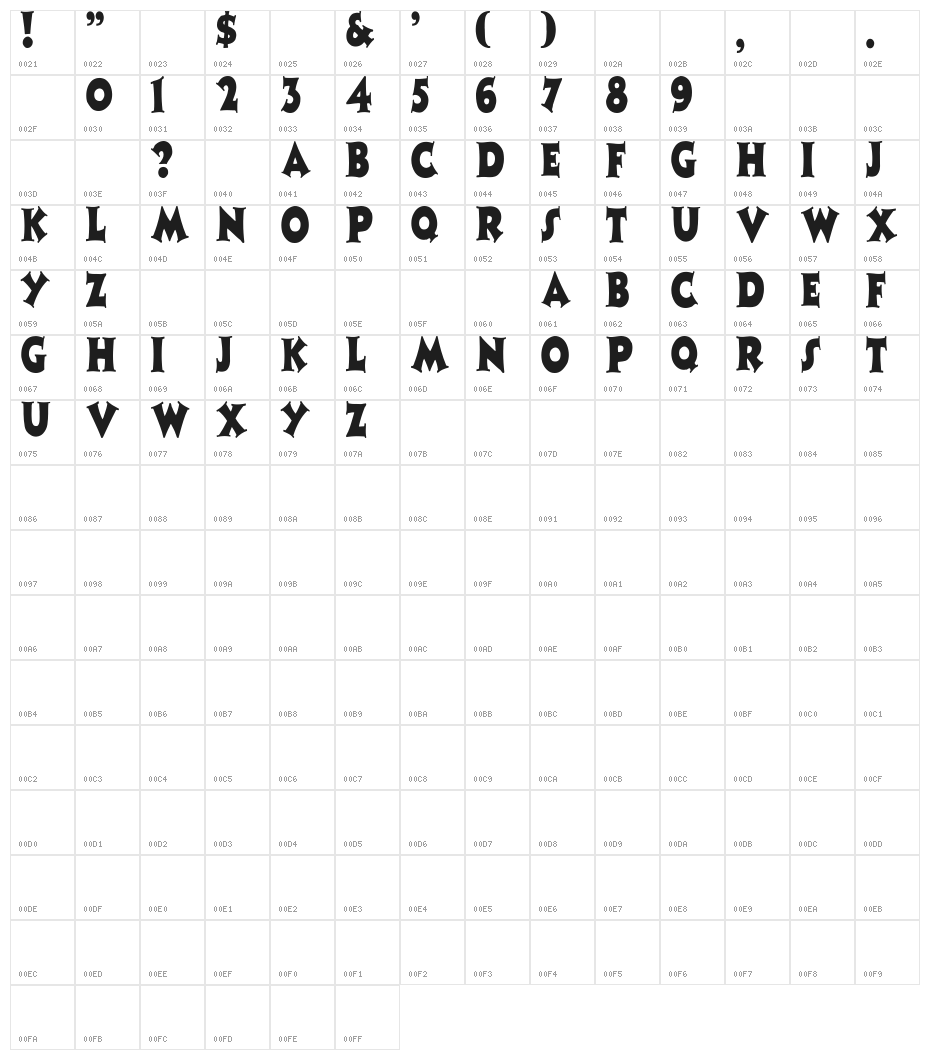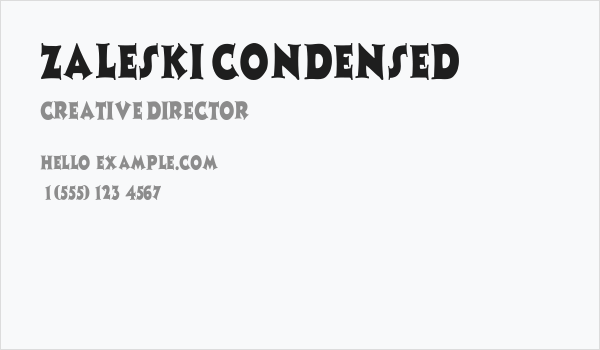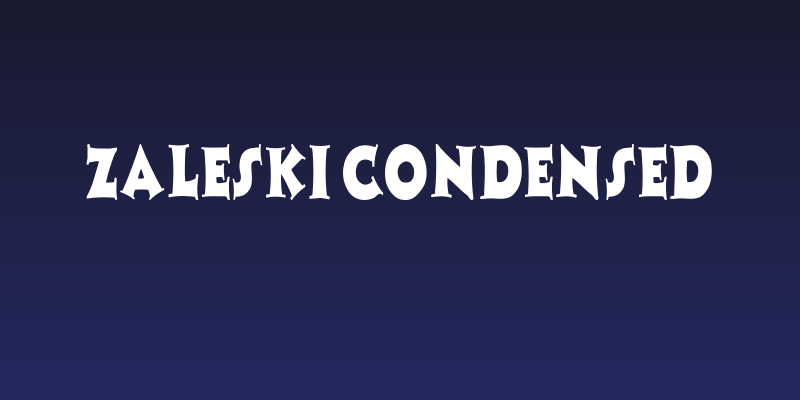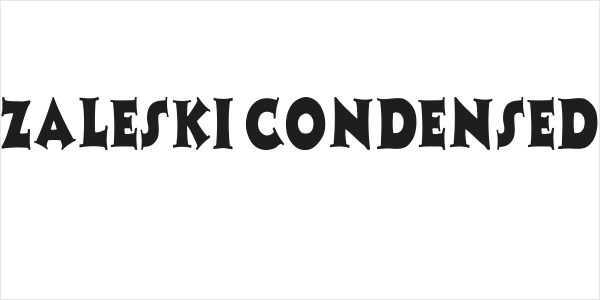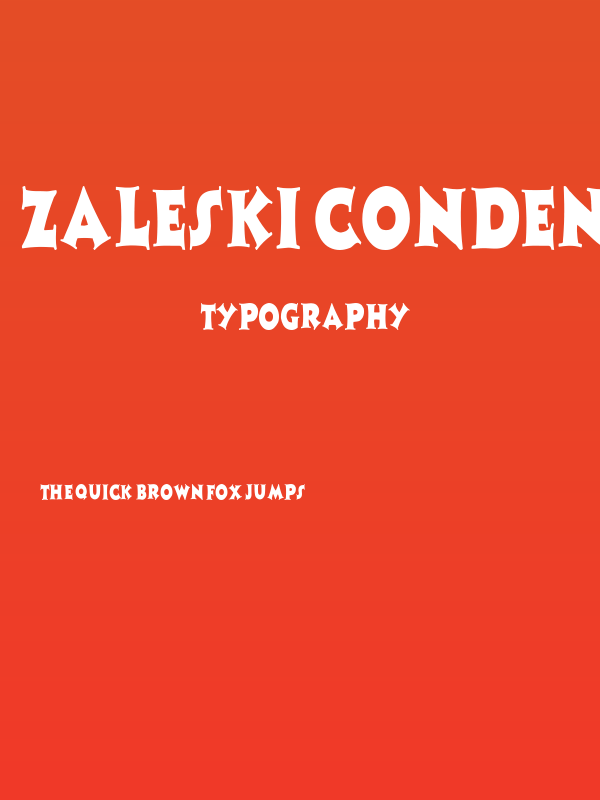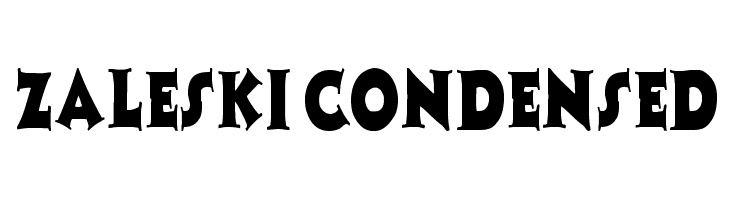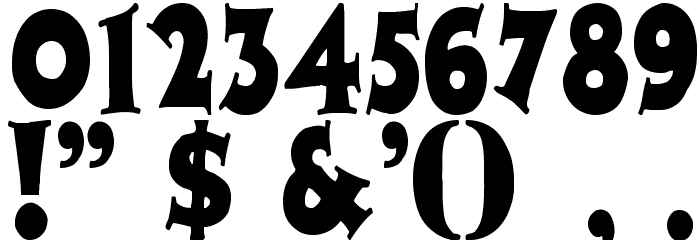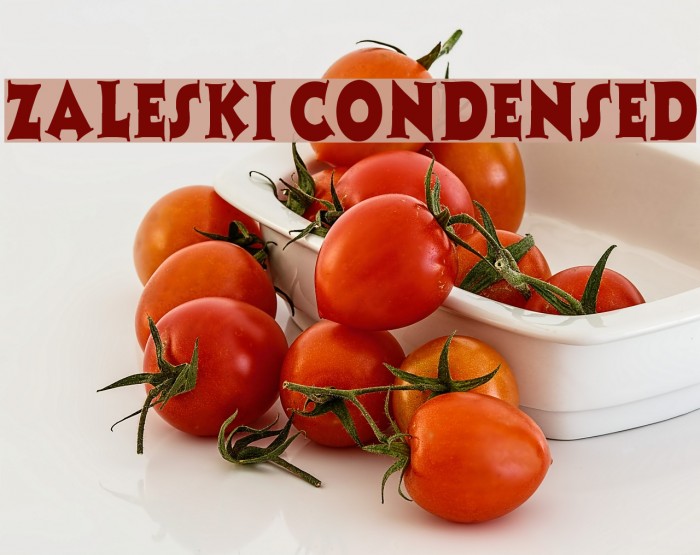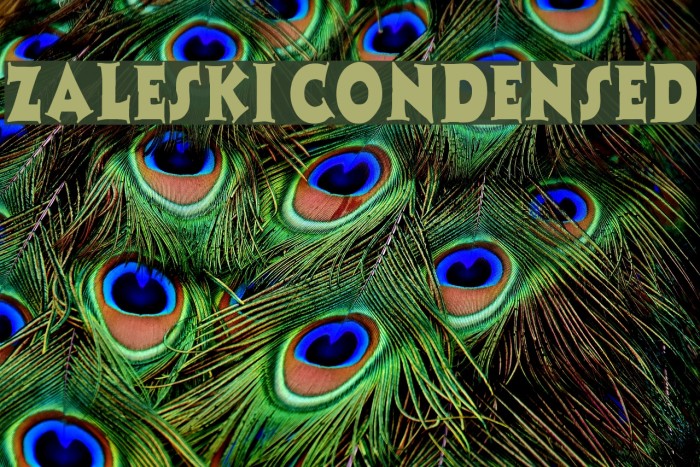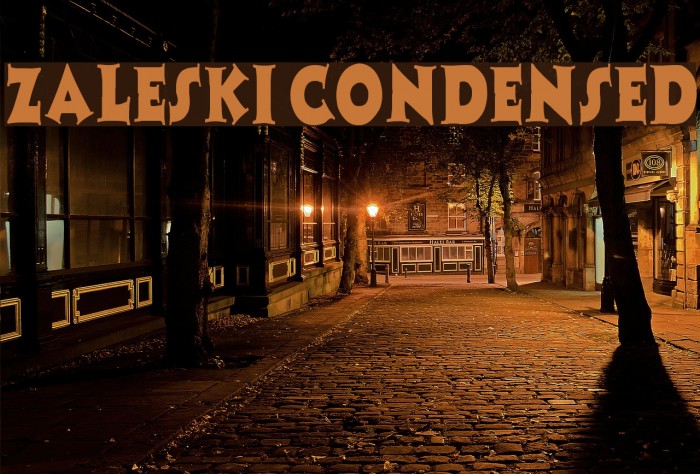
Zaleski Condensed Font
Zaleski Condensed Description
This font features a bold and dramatic style with sharp, angular serifs and a condensed structure. The uppercase letters exhibit a strong presence, with exaggerated serifs that give a sense of movement and flair. The lowercase letters maintain the same boldness, ensuring consistency throughout the typeface. Numbers are equally bold, with a slightly playful touch in their design. The special characters are distinct and complement the overall aesthetic, making this font suitable for eye-catching designs. Its unique style is reminiscent of vintage poster typography, yet it maintains a modern edge.
| Overall Style | Vintage, Modern |
| Proposed Projects | Ideal for use in poster designs, branding projects, and any creative work that requires a strong, impactful typeface. |